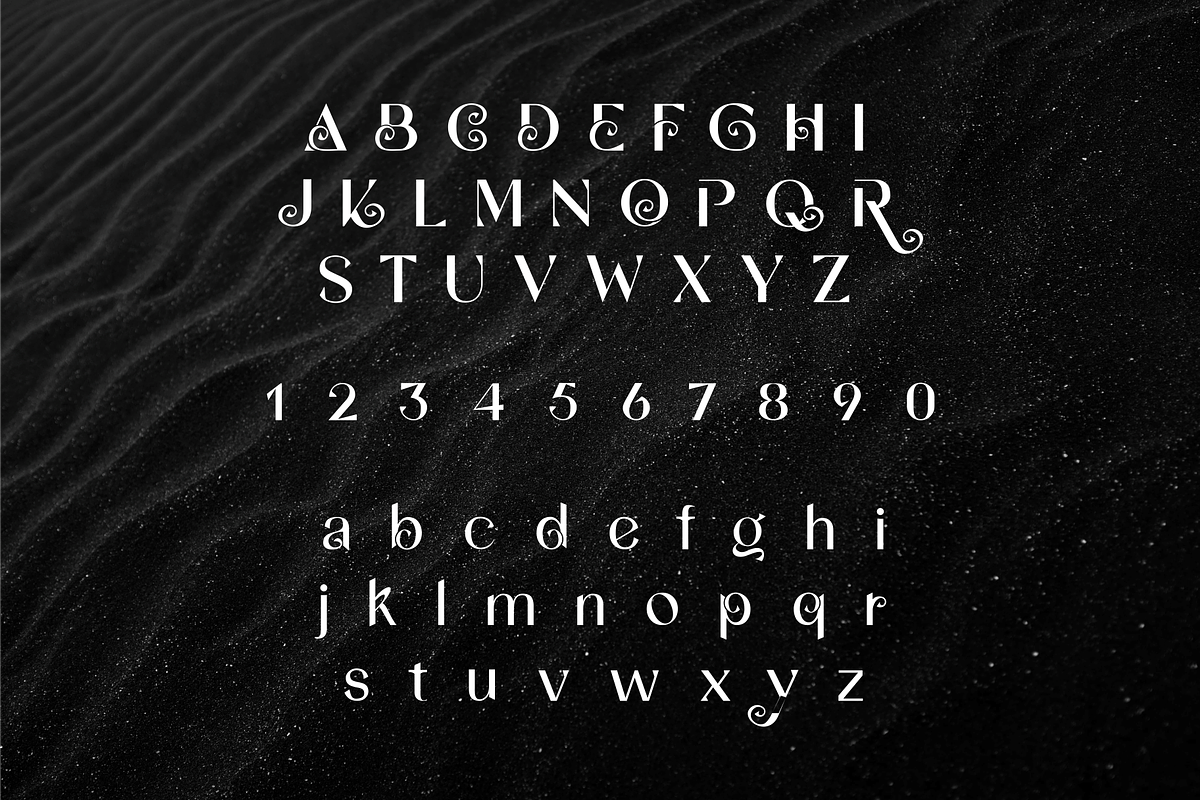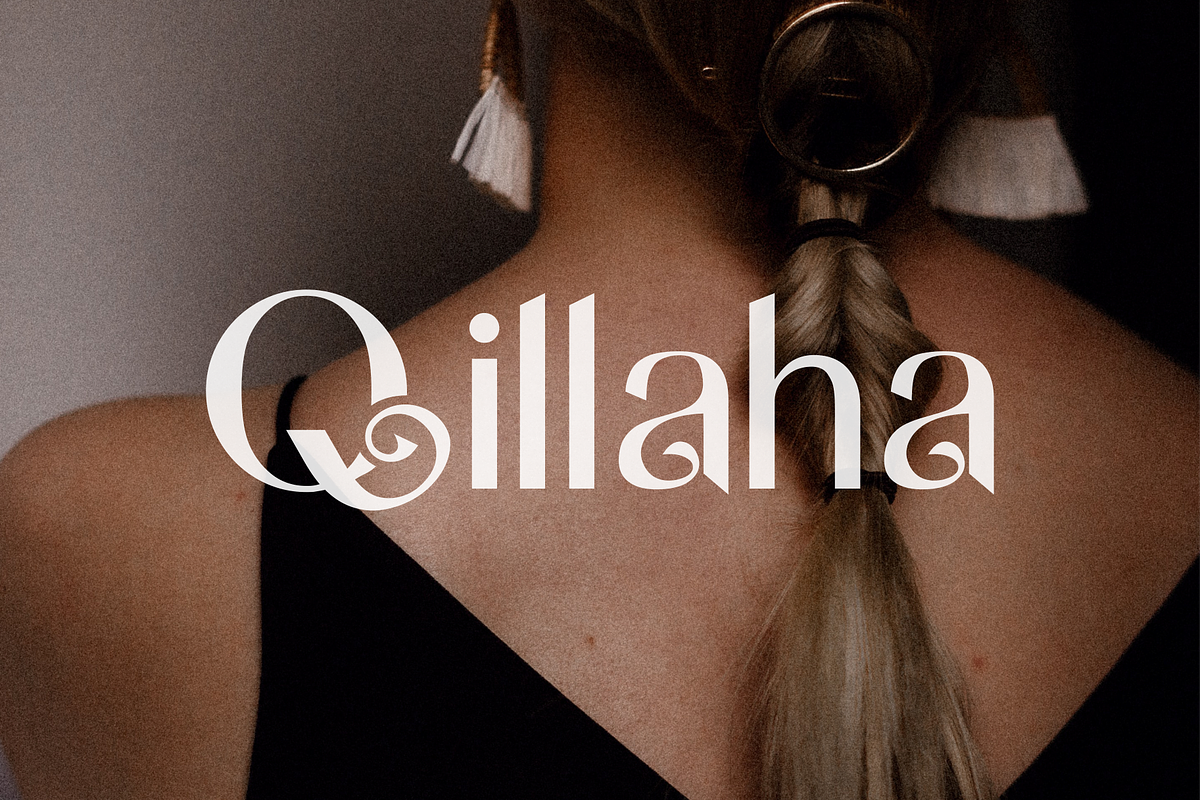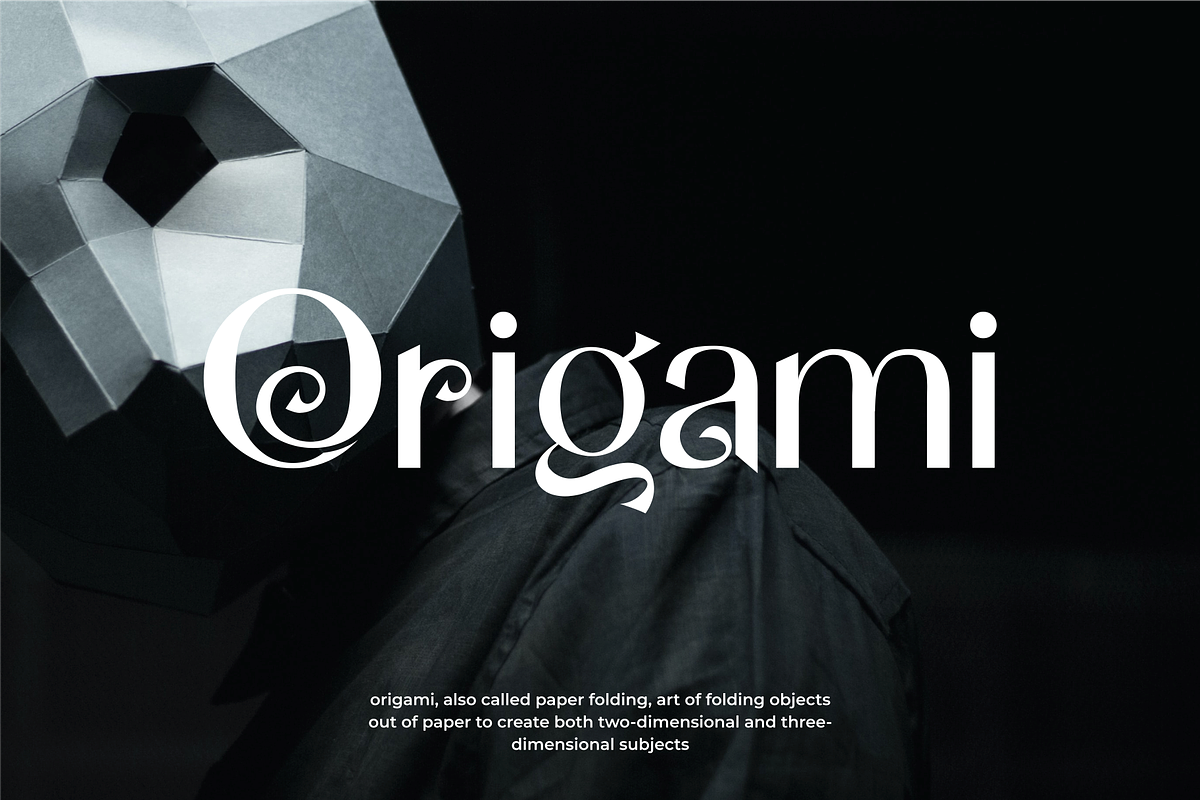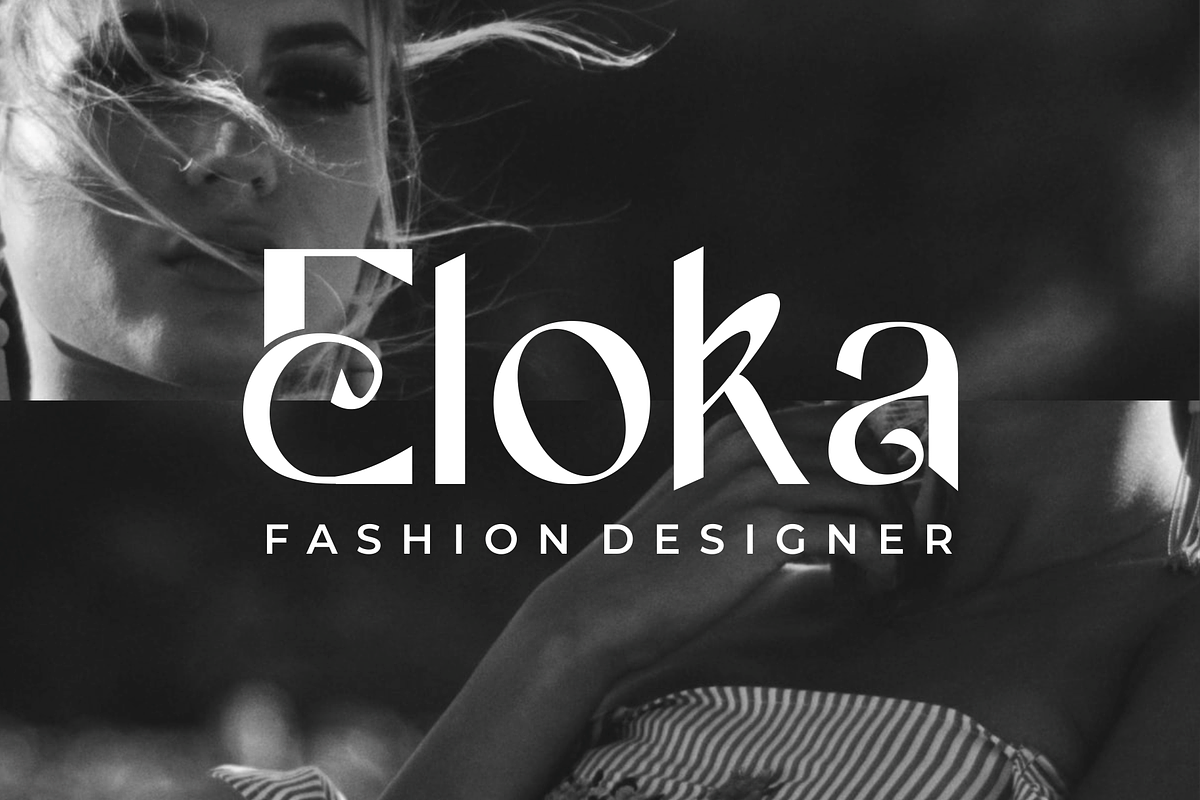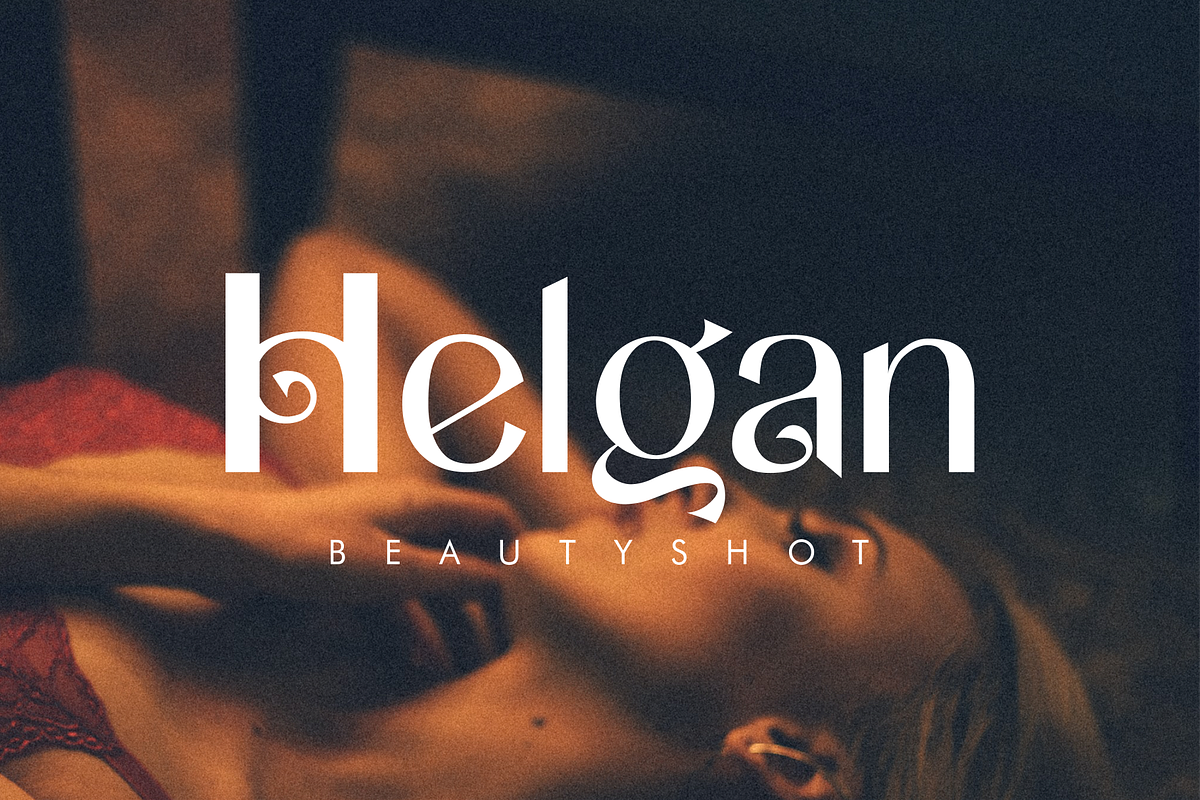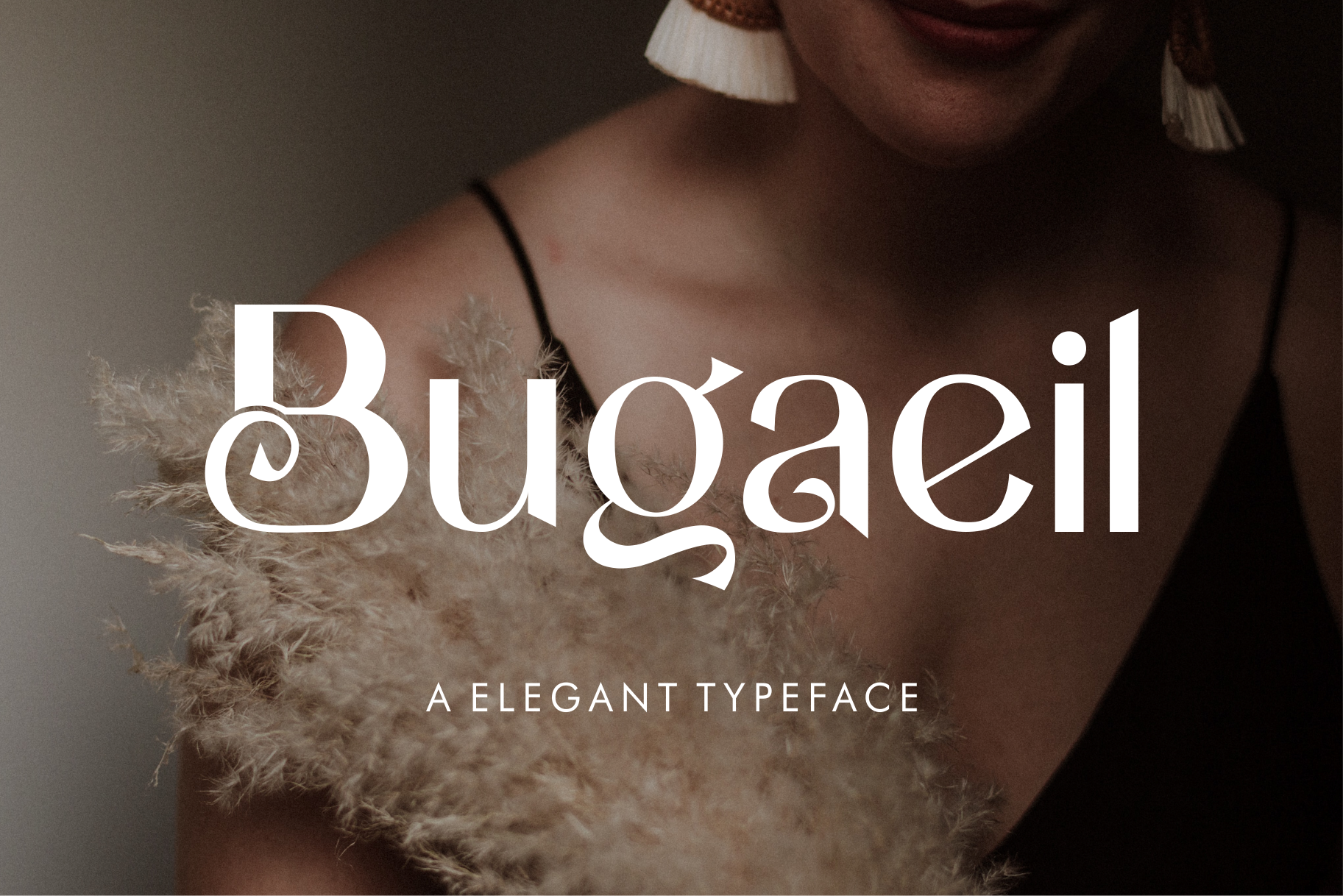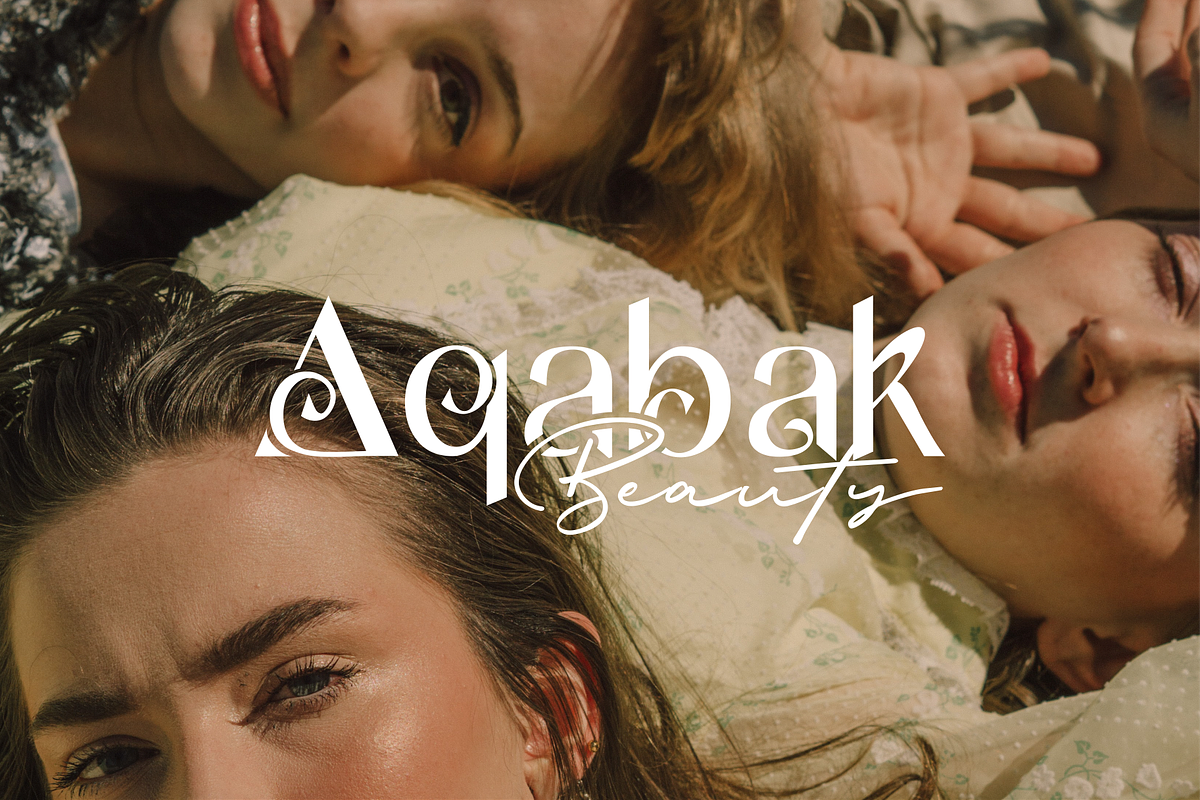
Bugaeil - A Elegant Typeface
Bugaeil - A Elegant Typeface Font will perfect for many project: fashion, magazines, logo, branding, photography, invitations, wedding invitation, quotes, blog header, poster, advertisements, postcard, book, websites, etc.